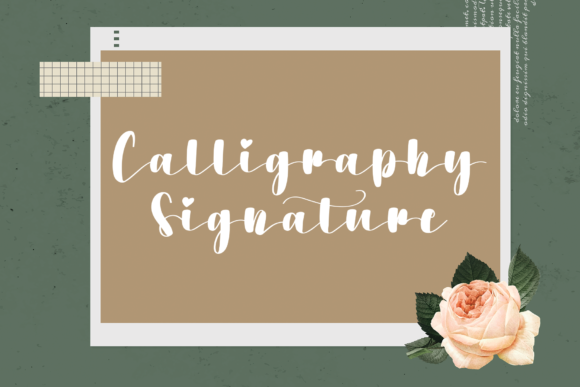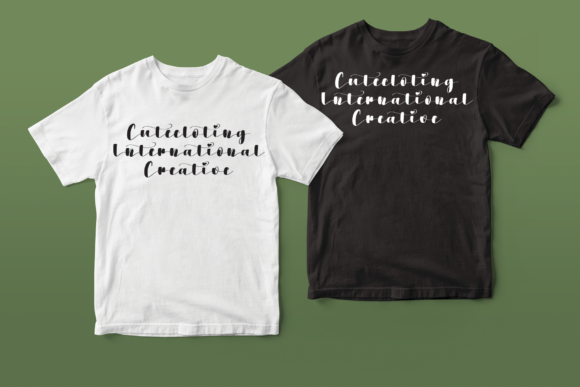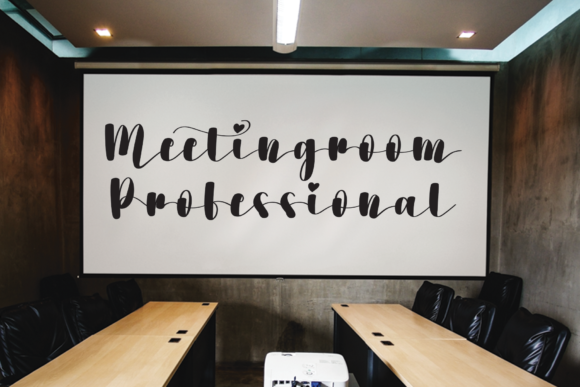
Beautiful Homework Font: Free Download Now
Introduction to Beautiful Homework Font
Beautiful Homework is a chic, casual and friendly handwritten font.
Whether you’re looking for fonts for Instagram or calligraphy scripts for DIY projects, this font will turn any creative idea into a true piece of art .
Key Features of Beautiful Homework Font
Why Choose Beautiful Homework Font?
Beautiful Homework Font offers exceptional quality and versatility, making it a valuable addition to your design toolkit. Whether you’re creating for personal projects or commercial use, Beautiful Homework Font delivers professional results.